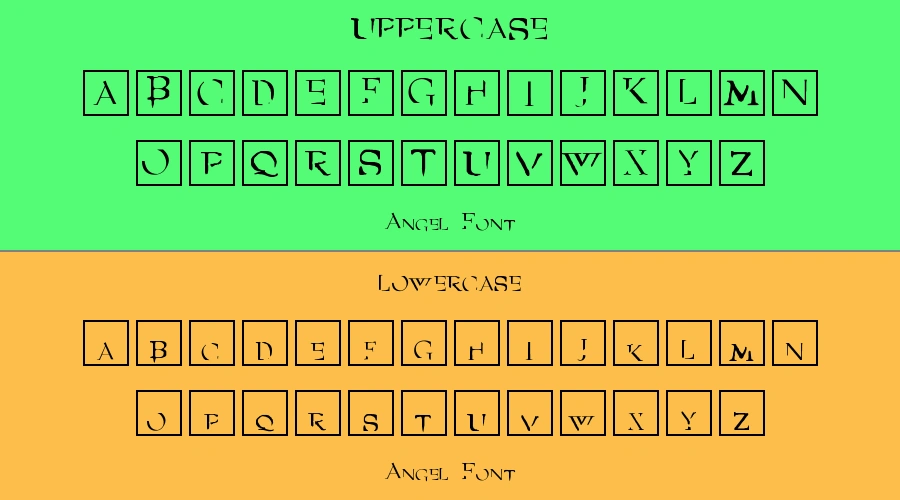
About Angel Font
Designed with precision, Angel Font merges hand-drawn quality with performance stability in every character. This versatility makes it particularly effective for packaging hero, where authenticity and consumer connection directly impact communication quality. Each letterform demonstrates meticulous craftsmanship.
Technical excellence shines through elements like artistic freedom and numerator/denominator, enhancing typographic versatility. In literary pages settings, Angel Font proves its worth through superior cross-platform compatibility. The thoughtful execution of vertex treatment and engineering heritage ensures professional results.